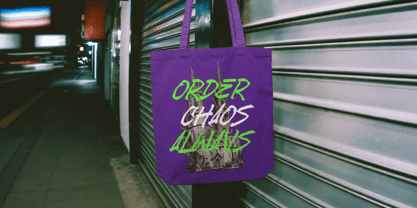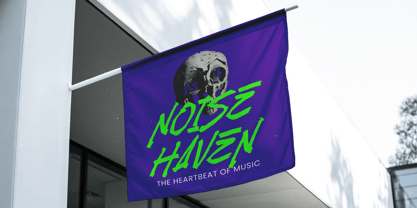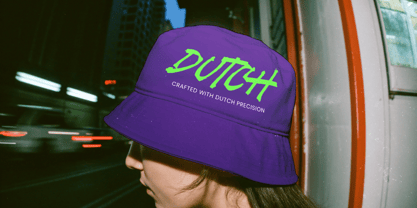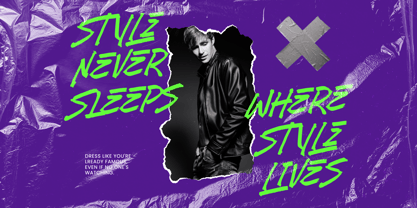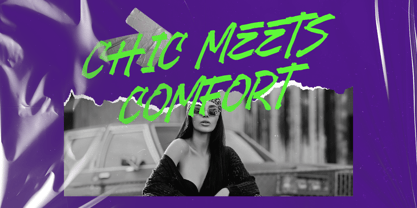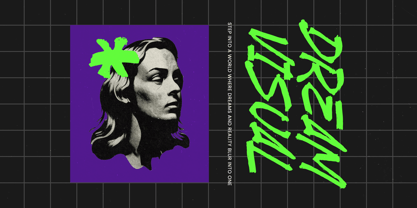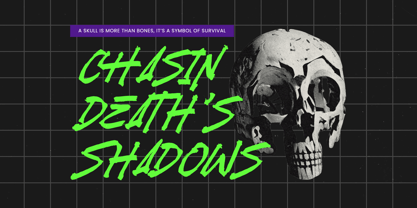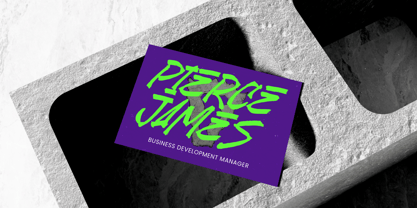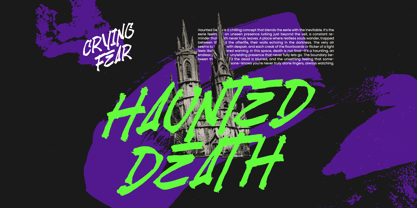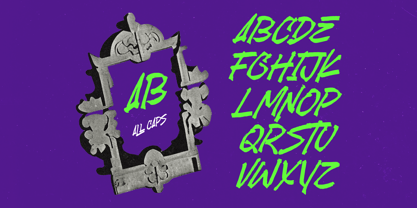
Endak Lounch
von Stylishtype Studio
Die Schriftfamilie Endak Lounch wurde von Heru Utama Putra entworfen und von Stylishtype Studio veröffentlicht. Endak Lounch enthält 2 Stile und Familienpaketoptionen. Mehr über diese Familie
Endak Lounch is a fearless display brush font built for loud visuals, high-impact branding, streetwear aesthetics, extreme sports posters, album covers, and any project that needs raw, unfiltered energy. With rough brush textures, aggressive stroke movement, 21 ligatures, and 6 bold swashes, this typeface explodes off the canvas—perfect for designers who want attitude, speed, and chaos in controlled form. The messy ink splatter look gives your artwork a rebellious edge, while the dynamic shapes help every headline hit harder. Great for music promos, gaming thumbnails, festival posters, merch drops, and urban creative work that refuses to look quiet.
Designer: Heru Utama Putra
Foundry: Stylishtype Studio